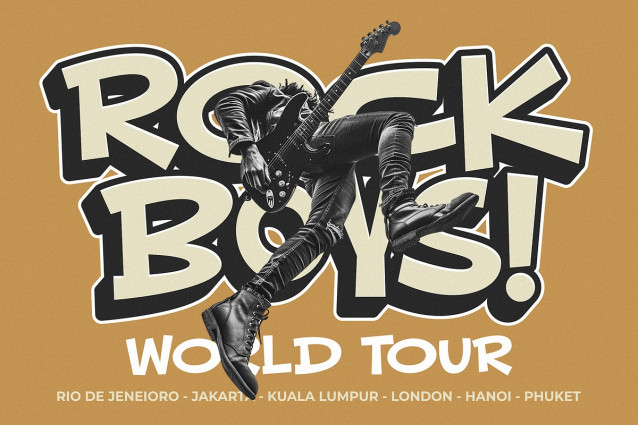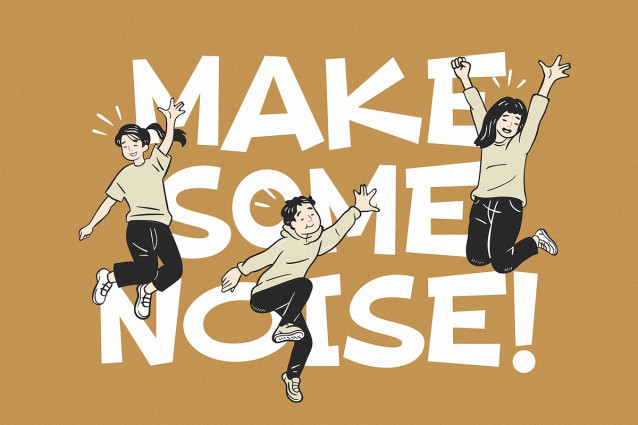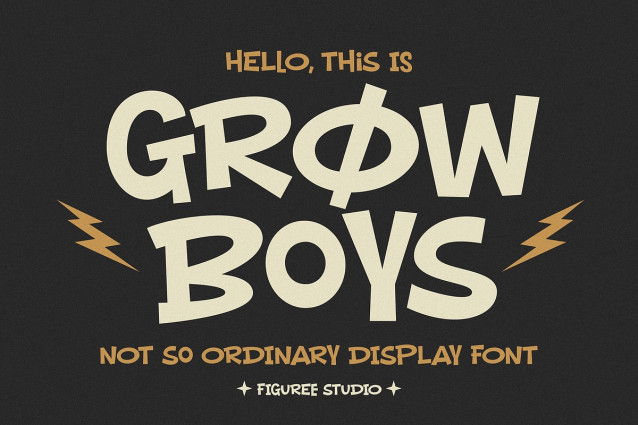
Grow Boys Font
Grow Boys Font – the Not So Ordinary Display Font that brings a playful and distinctive charm to your designs. Perfect for projects that need a unique and engaging touch, GrowBoys is designed to make your text stand out with its quirky and unconventional style.
Playful and Distinctive: Grow Boys captures attention with its playful, irregular letterforms. Each character is crafted to convey a sense of fun and creativity, making it ideal for designs that need a whimsical and eye-catching appeal.
Unique and Engaging: This font breaks away from the ordinary, offering a fresh and original look that adds personality to your projects. Whether you’re designing for children’s books, posters, or playful branding, Grow Boys brings a unique edge that sets your designs apart.
Versatile and Creative: Grow Boys adapts effortlessly to various applications, from print to digital media. Its distinctive style is perfect for a wide range of creative projects, including logos, packaging, social media graphics, and more.
Unconventional Charm: The irregular and playful nature of Grow Boys adds an unconventional charm to your designs, making them memorable and impactful. Each letter exudes a sense of individuality and artistic expression, perfect for projects that require a bold and creative touch.
Elevate your designs with Grow Boys – the Not So Ordinary Display Font that combines playful charm with distinctive style. Perfect for making a unique visual impact, Grow Boys is your go-to font for adding a fun and engaging touch to any project.